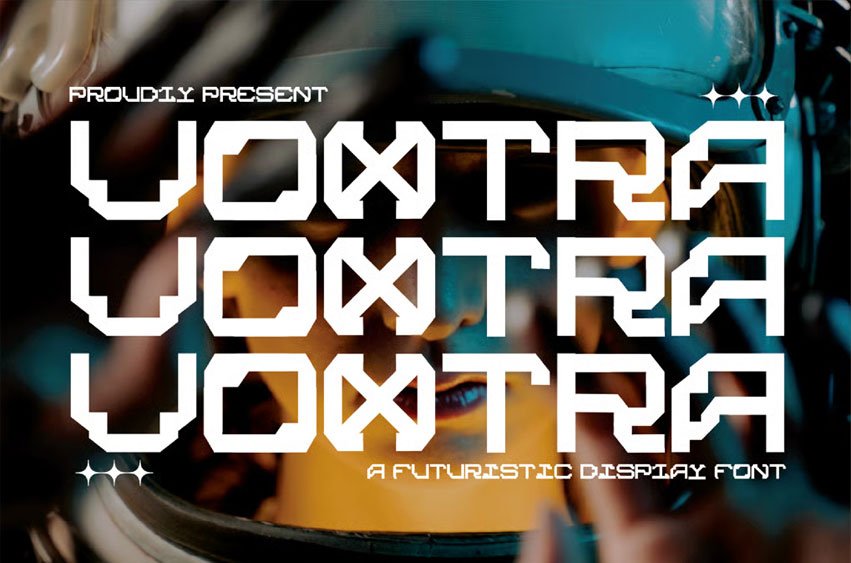
Voxtra Futuristic Font is a futuristic font that combines boldness with sleek modernity, designed to capture the essence of innovation and high-tech precision.
Its sharp, angular lines and distinct geometric forms make it perfect for projects that aim to evoke a sense of futuristic advancement.